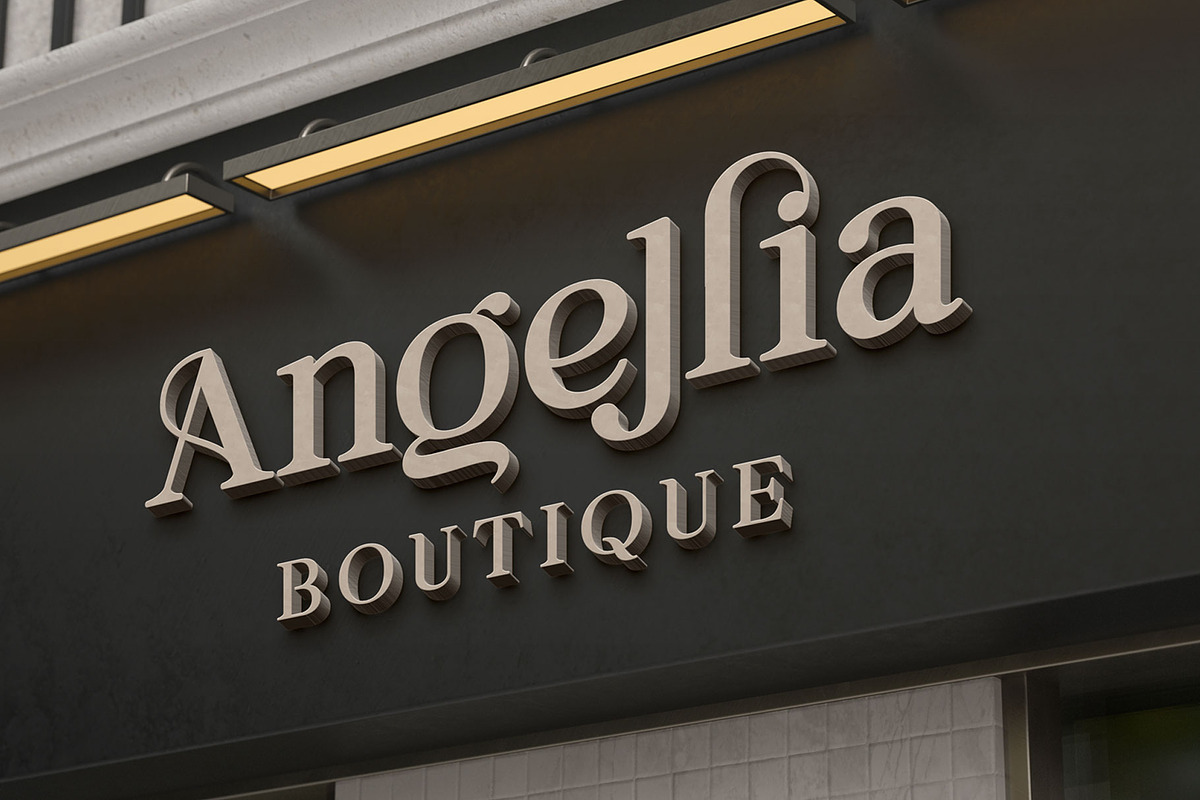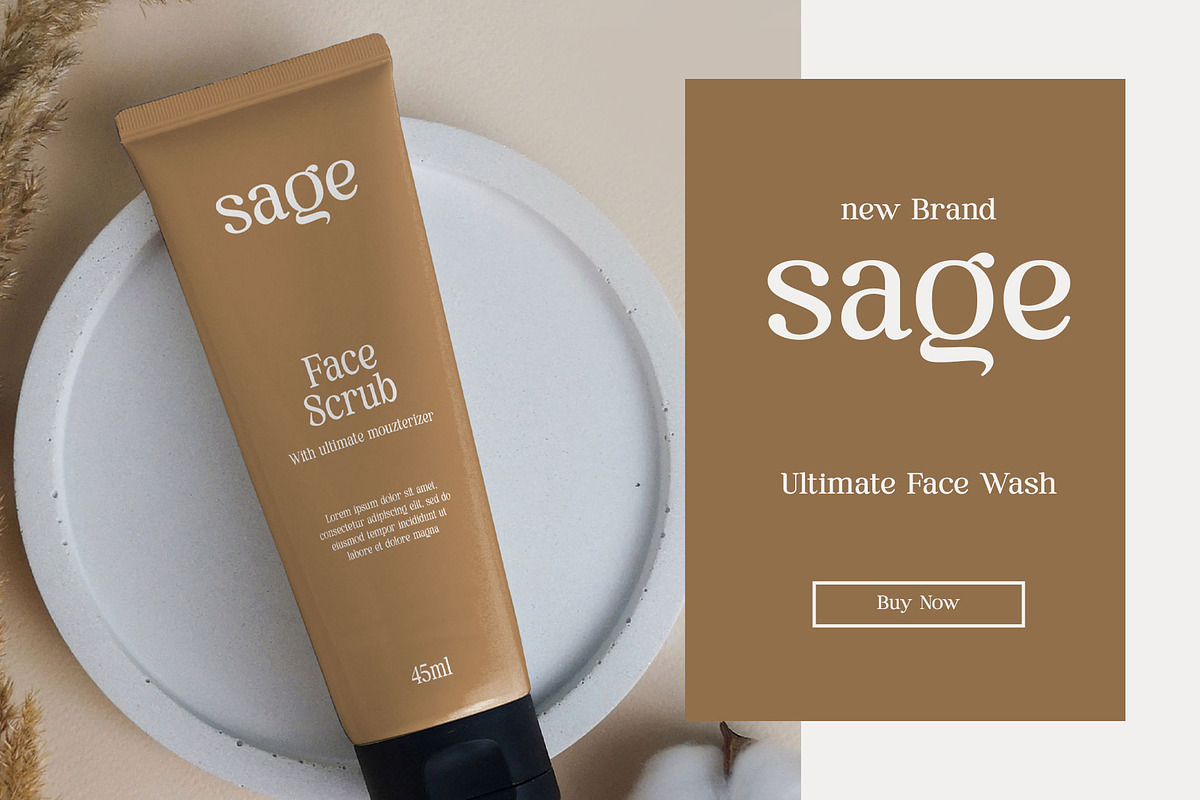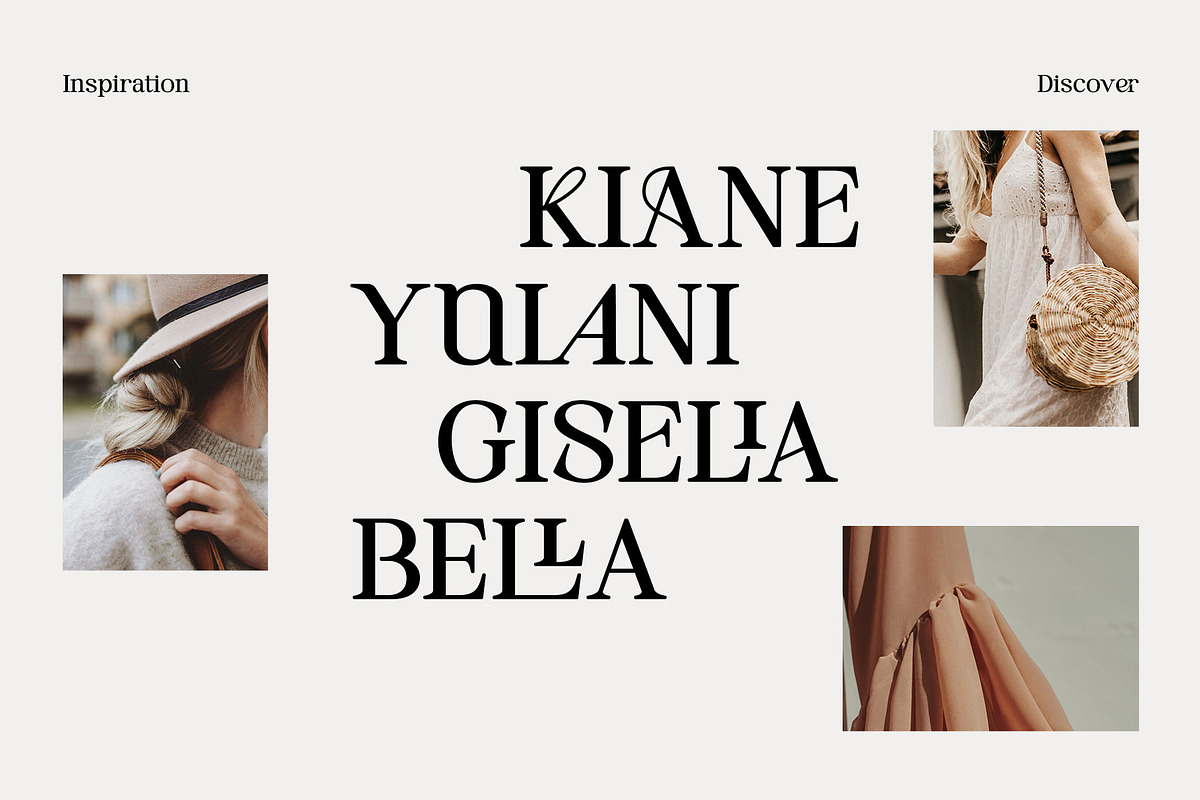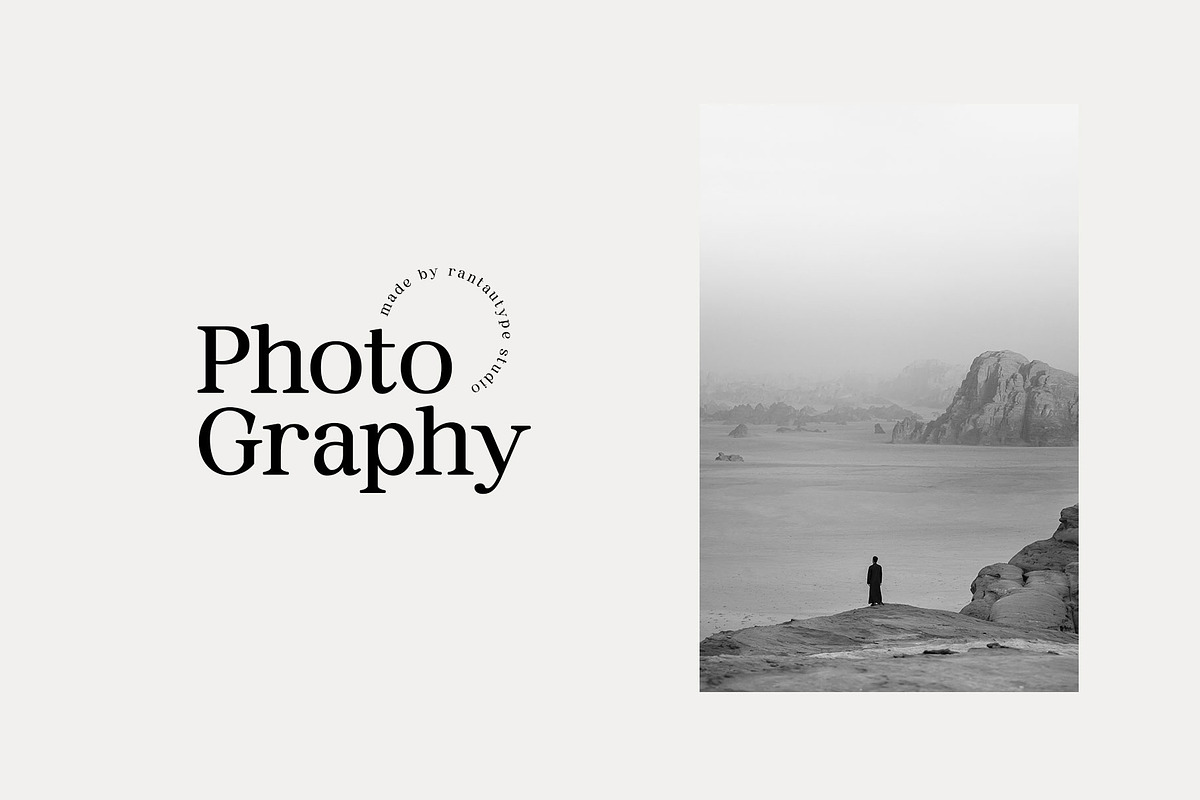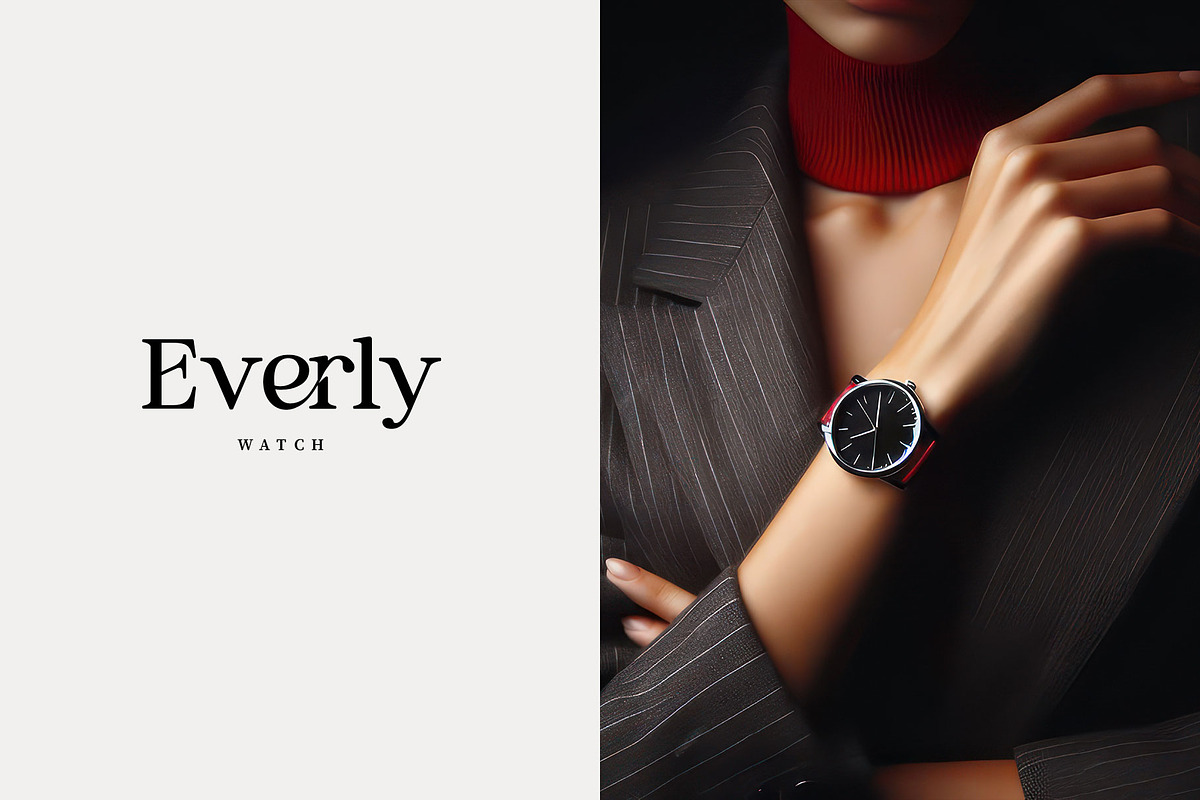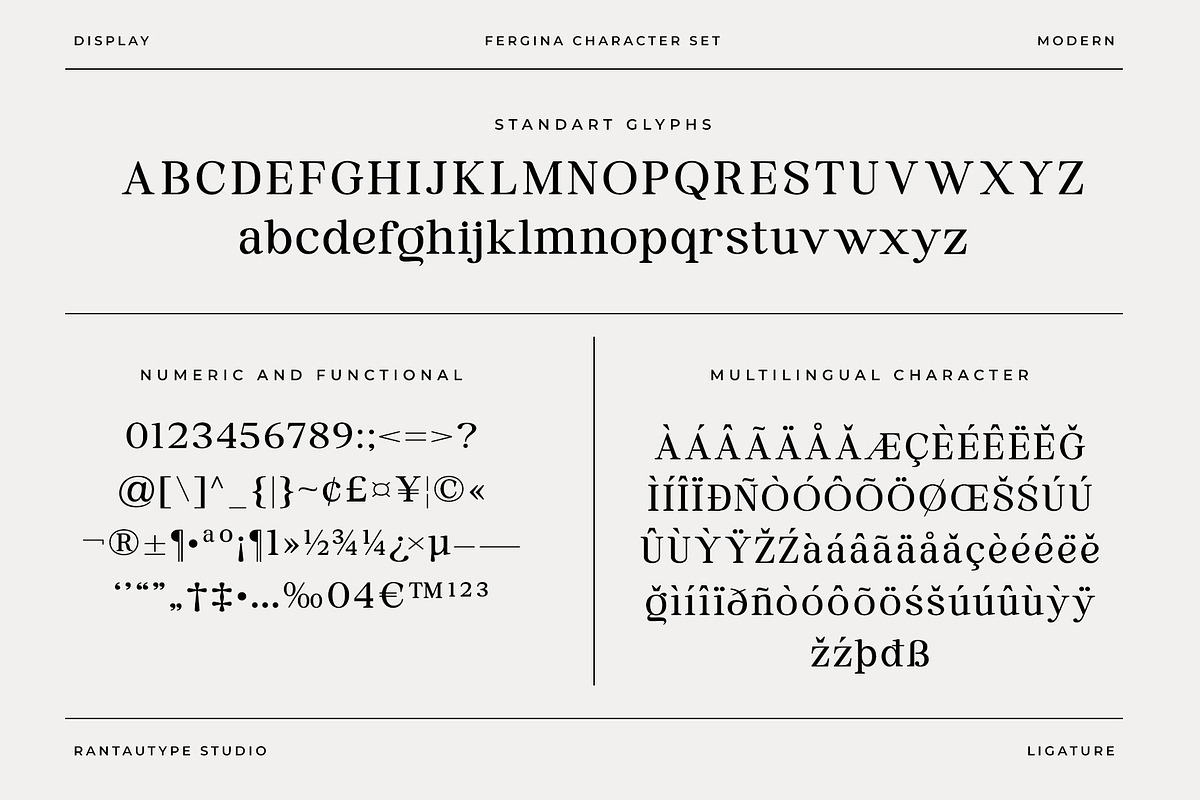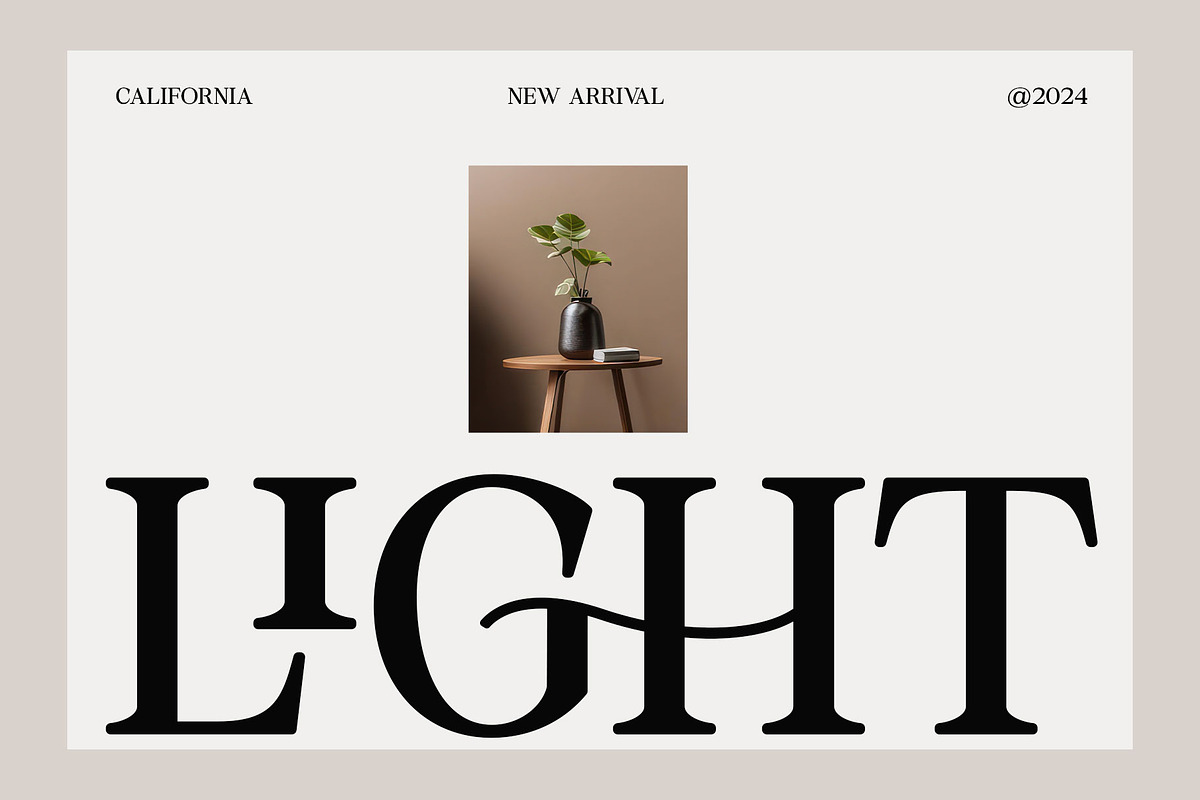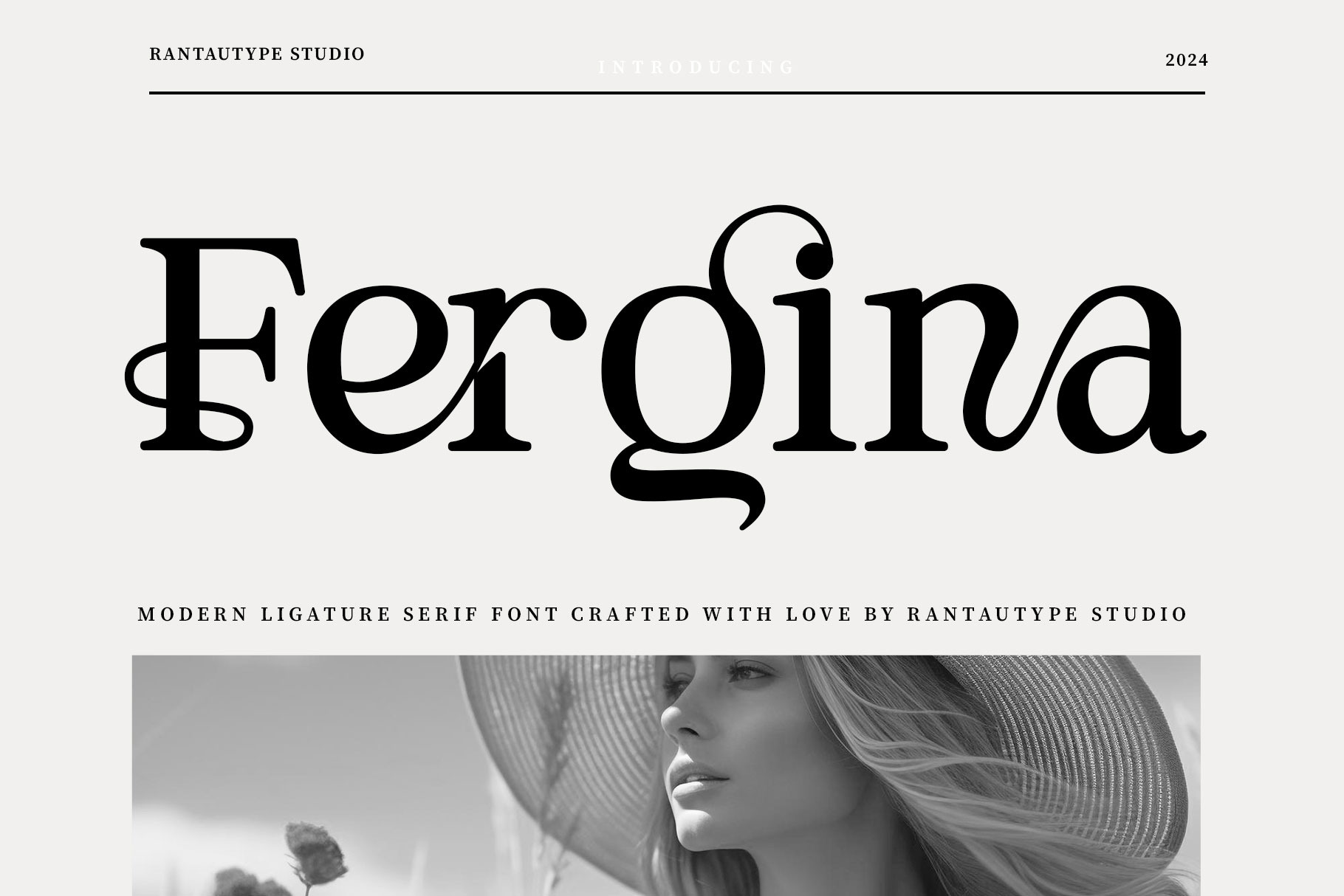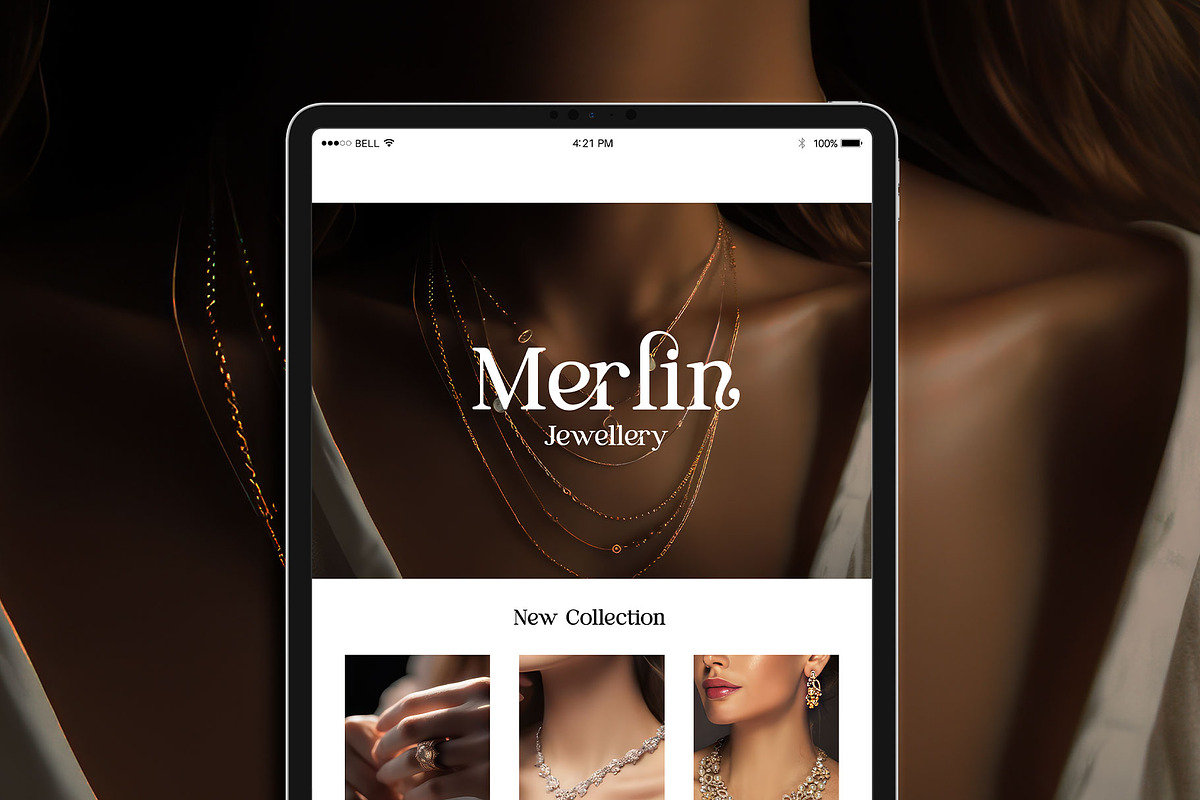
Fergina Modern Ligature Font
Fergina is modern serif font with 50+ ligature. Fergina give elegant and attractive visual design to create project design stand out.
Fergina is a perfectly choice for any creative endeavor, chic, lifestyle design such as logos, advertisements, watermark on photography, stationery, branding project, display and magazine, invitation, corporate brand, product design, label, business project and many other project with elegant touch.
- Standart Glyphs
- Alternate and ligature
Fonts include Multilingual Character for: Afrikaans, Albanian, Asu, Basque, Bemba, Bena, Breton, Chiga, Cornish, Dutch, English, Estonian, Filipino, Finnish, Friulian, Galician, Gusii, Indonesian, Irish, Italian, Kabuverdianu, Kalenjin, Kinyarwanda, Luo, Luxembourgish, Luyia, Machame, North, Oromo, Portuguese, Quechua, Romansh, Rombo, Rundi, Rwa, Samburu, Sango, Sangu, Scottish, Gaelic, Sena, Shambala, Shona, Soga, Somali, Spanish, Swahili, Swedish, Swiss, German.